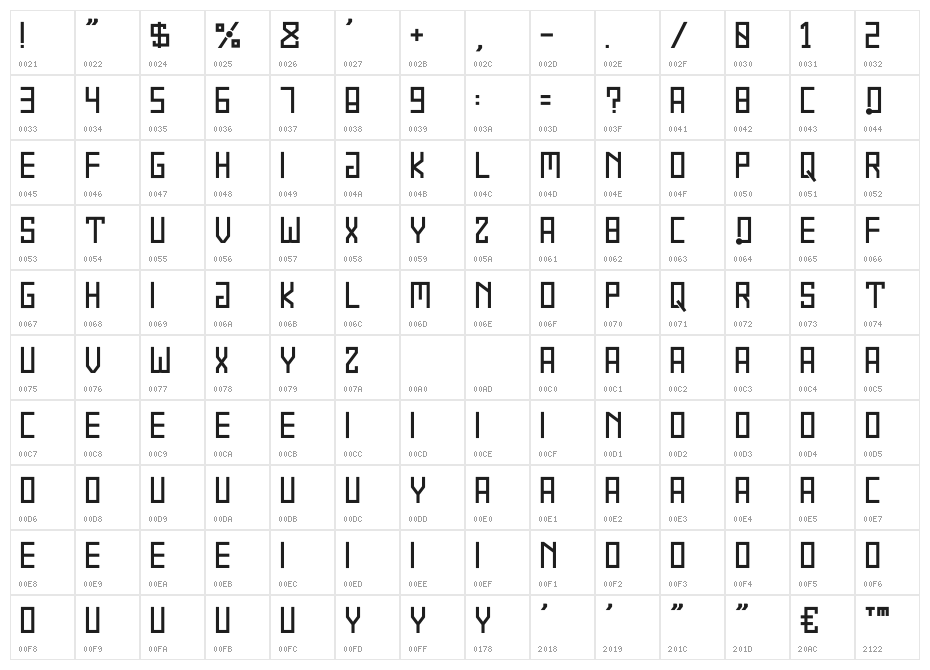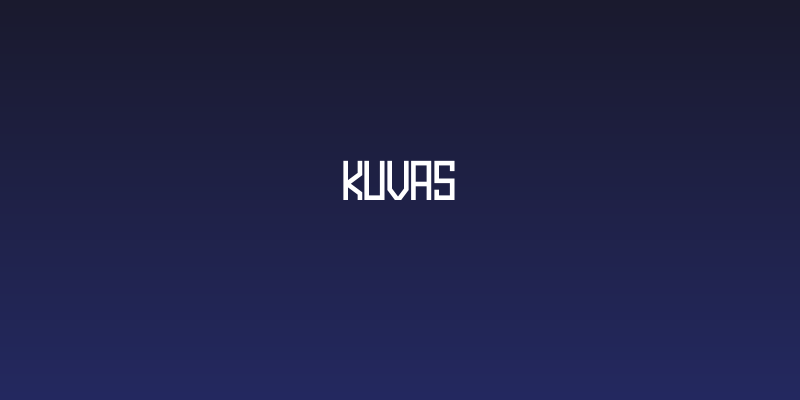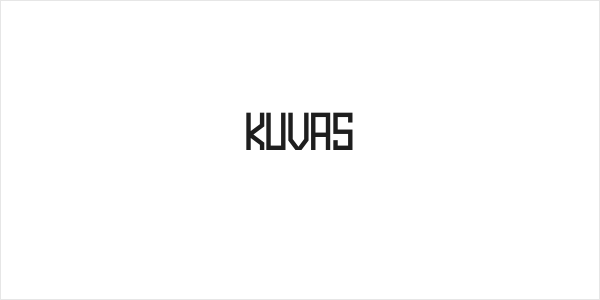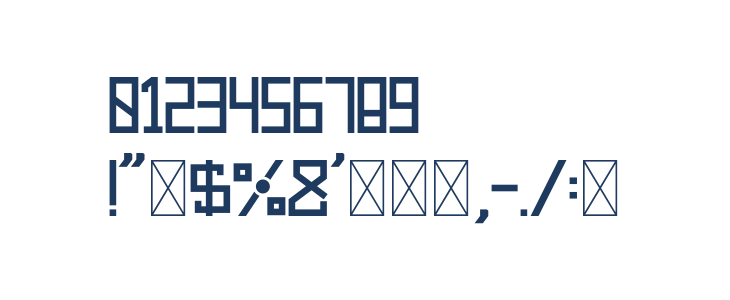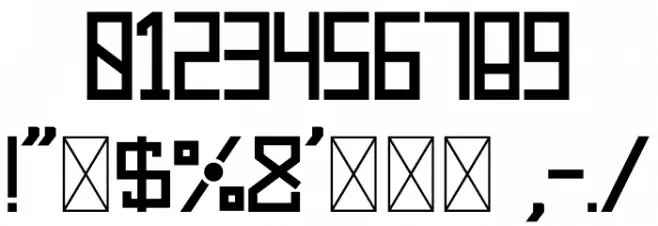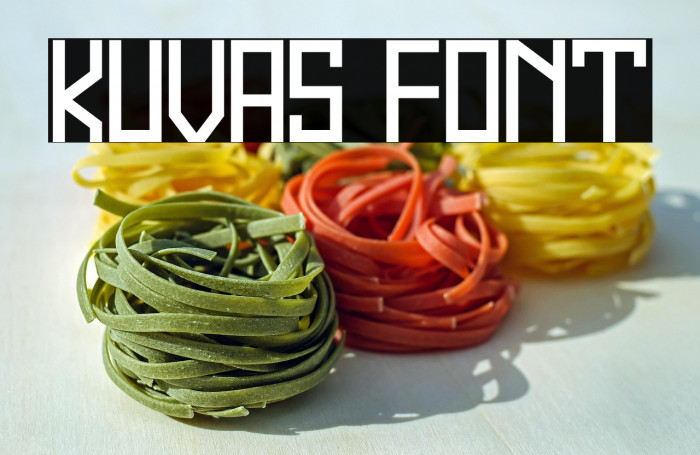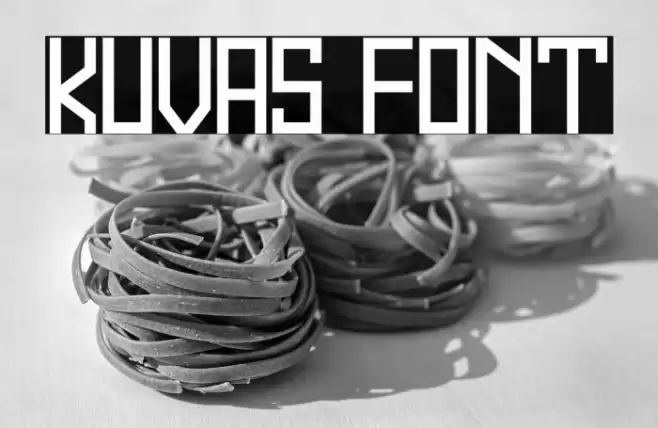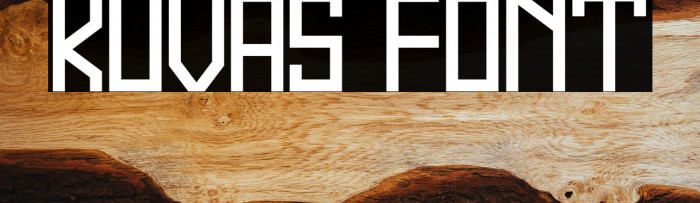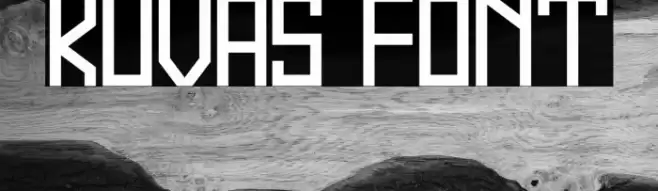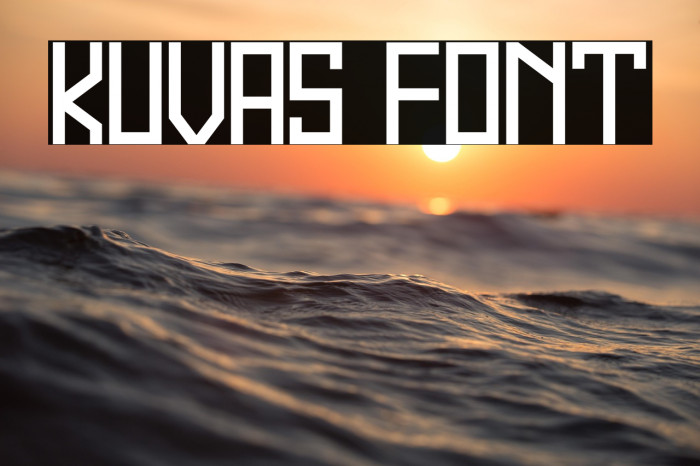
KUVAS Font
KUVAS Description
This font features a geometric and futuristic design with a strong emphasis on angular shapes and clean lines. Each character is constructed with a consistent thickness, creating a bold and uniform appearance. The uppercase letters exhibit a unique style with distinct, sharp corners and a modern aesthetic. The numbers and special characters maintain the same geometric theme, ensuring a cohesive look across all elements. This font's design is both striking and versatile, making it suitable for a variety of creative applications.
| Proposed Projects | Ideal for sci-fi themed projects, modern branding, tech-related designs, and innovative advertising campaigns. |